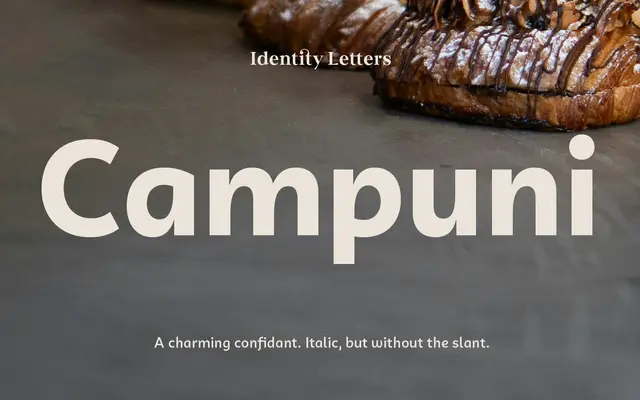
A humanist sans built on upright handwritten italic forms, offered in 36 styles including left-leaning Retalics and an optional curved-stroke Smile variant.
Campuni takes handwritten italic letterforms and sets them upright, producing a sans-serif with warmth and personality without resorting to calligraphic affectation. The family spans nine weights from Thin to Black, each paired with a left-leaning oblique called a Retalic, and a secondary Smile subfamily gently curves the straight stroke endings for a softer register. Over 750 glyphs per style are included, with OpenType features covering lining and oldstyle figures, case-sensitive forms and a slashed zero.
Campuni draws its letterforms from handwritten italic models set upright, giving it the warmth and organic character of a humanist sans rather than a geometric or grotesque approach.